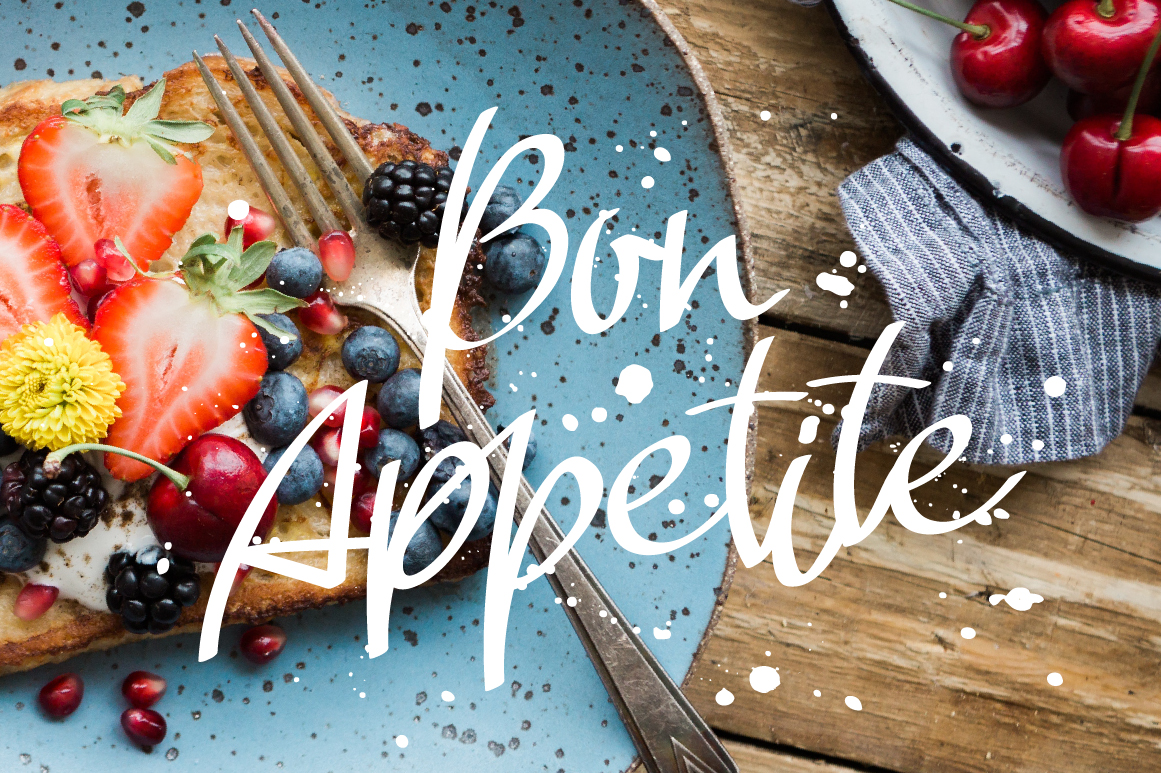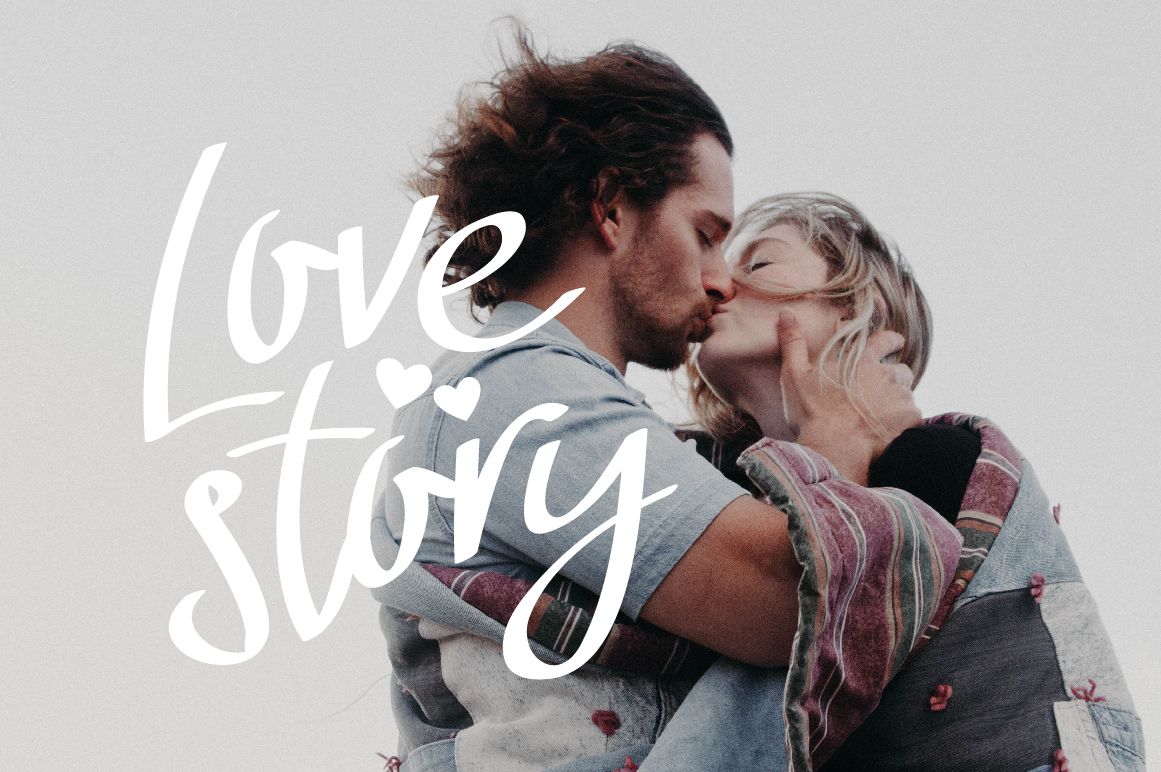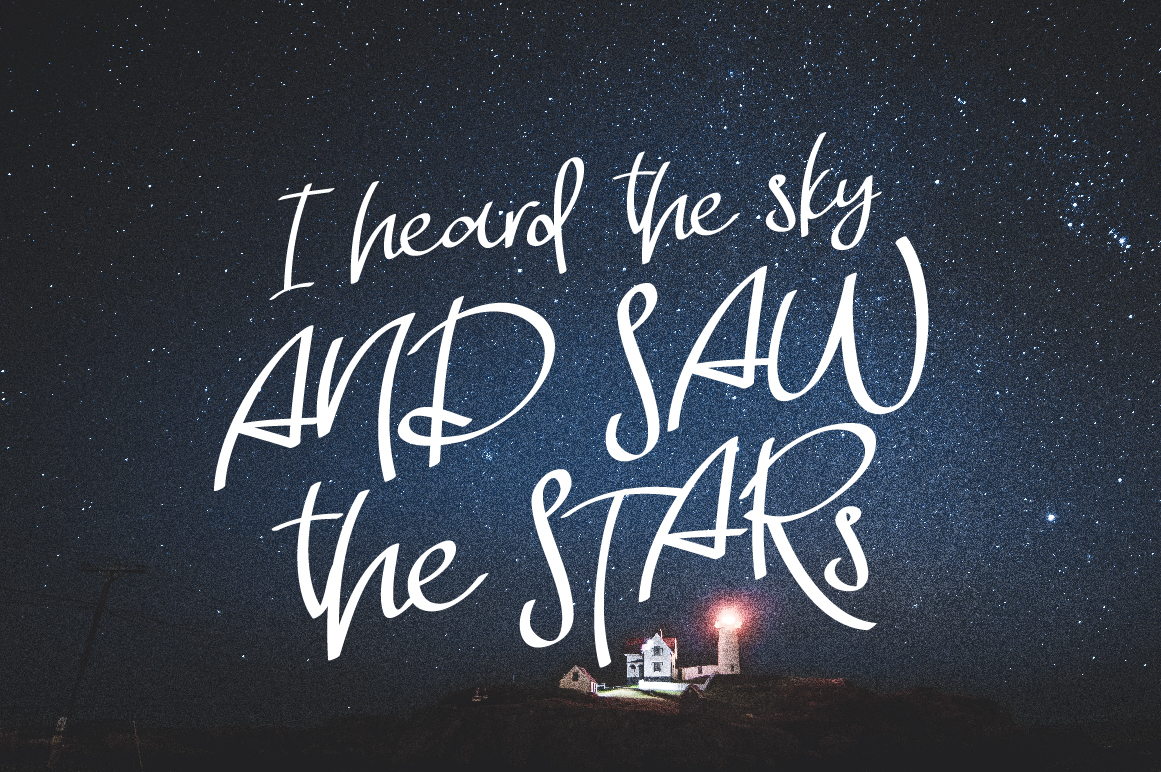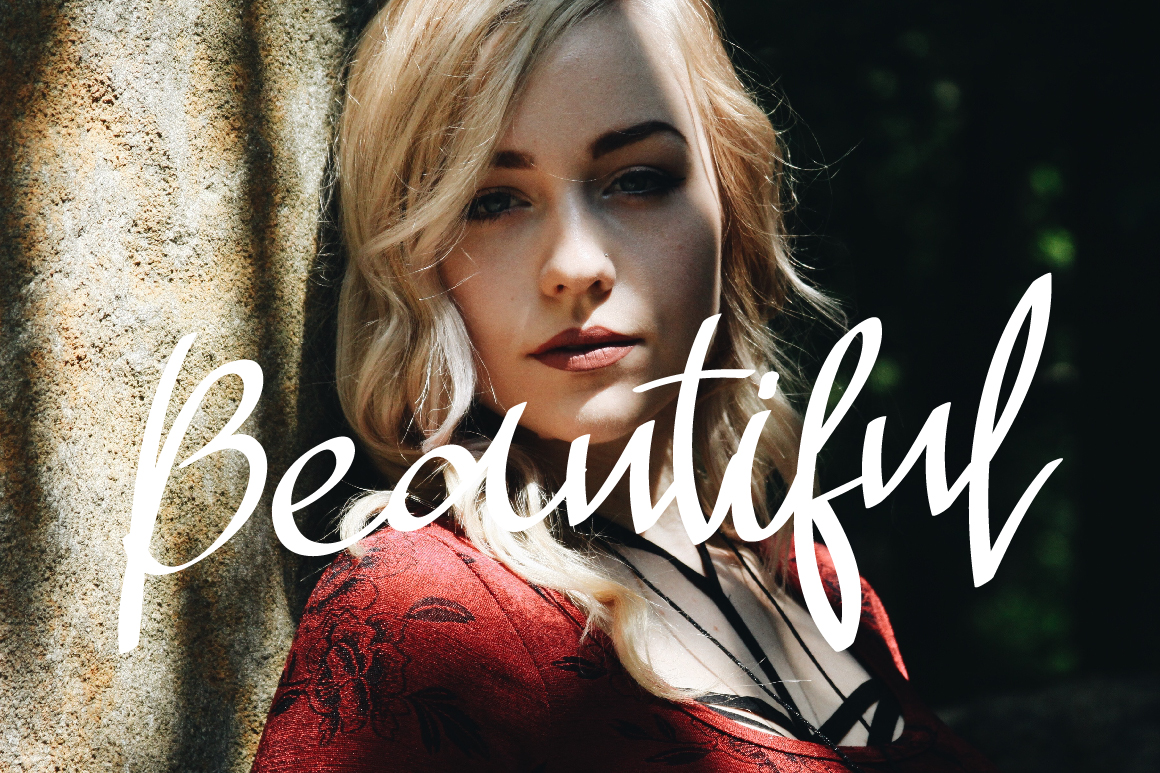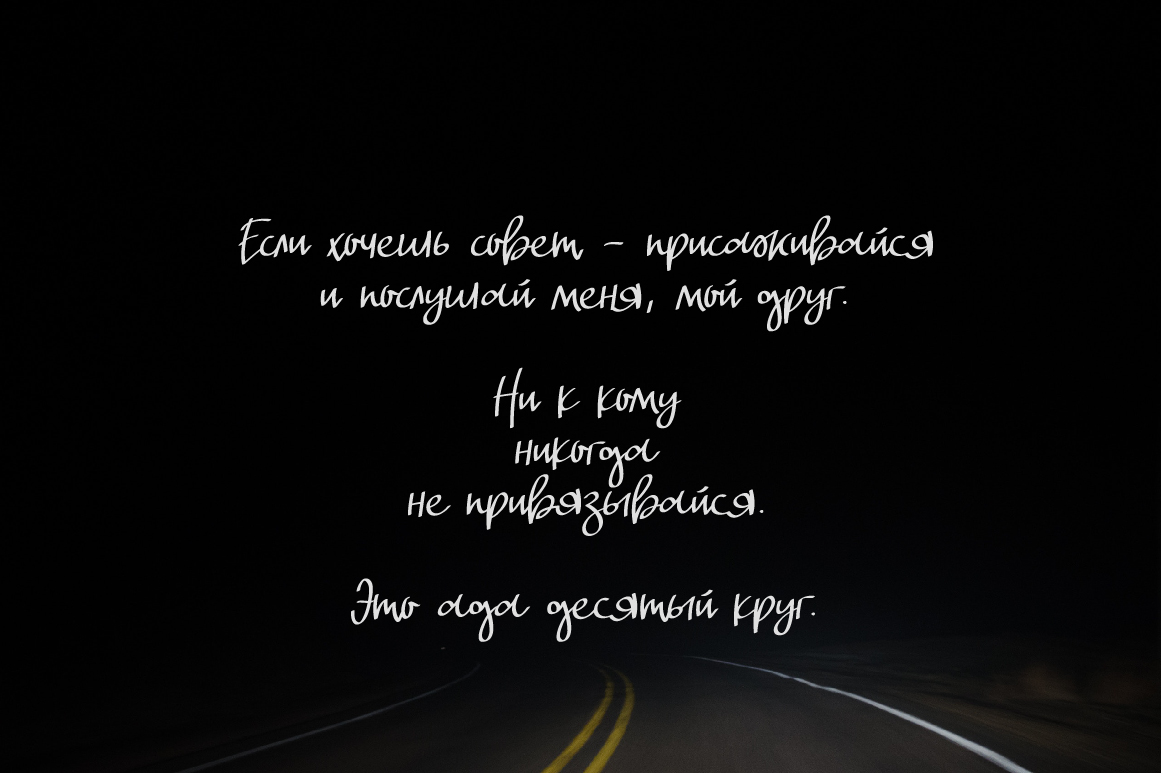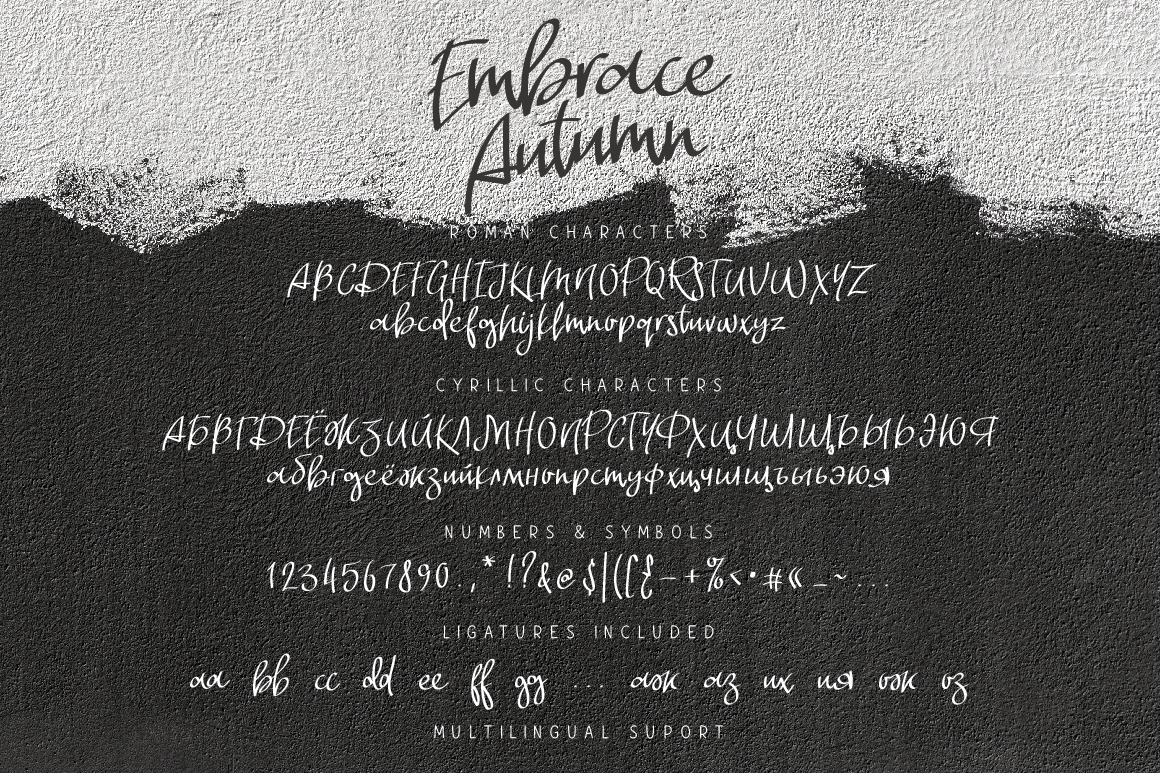
Embrace Autumn Font
About Embrace Autumn Font
Embrace Autumn is a beautiful handwritten font that exudes elegance and relaxation. Perfect for a wide range of designs, Embrace Autumn comes with uppercase and lowercase characters, large set of punctuation glyphs, numerals, ligatures, cyrillic characters and multilingual support.